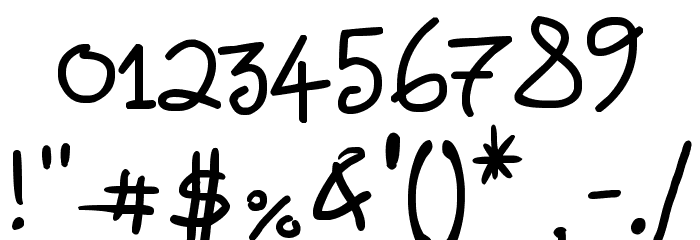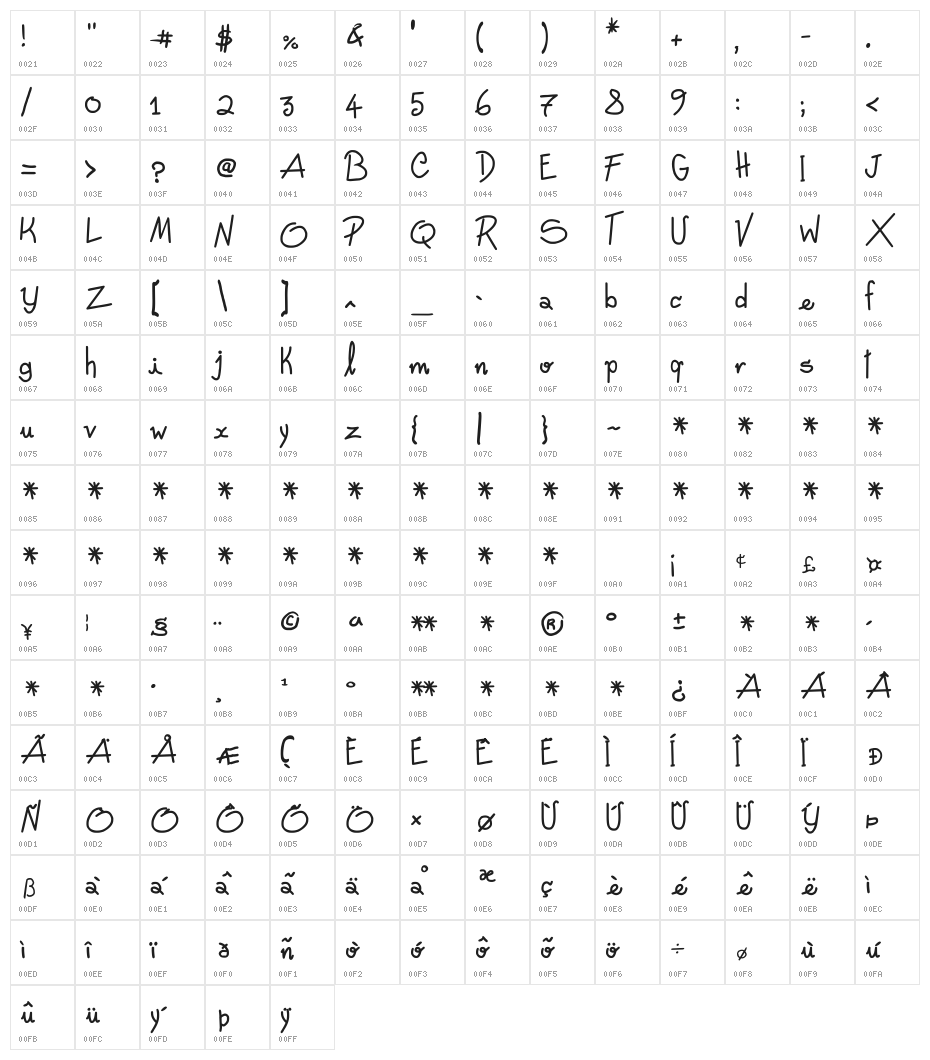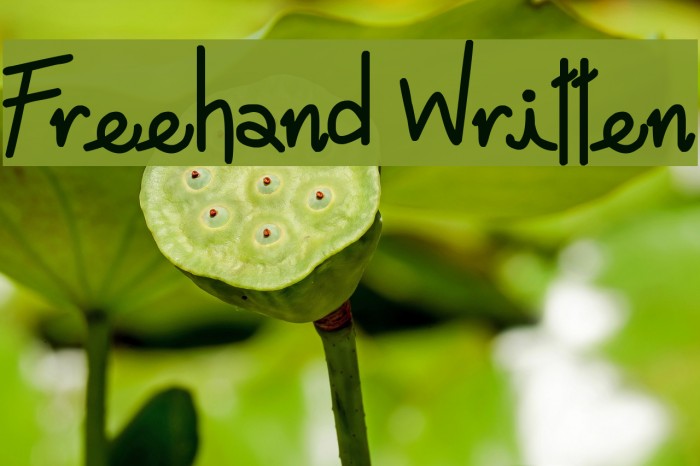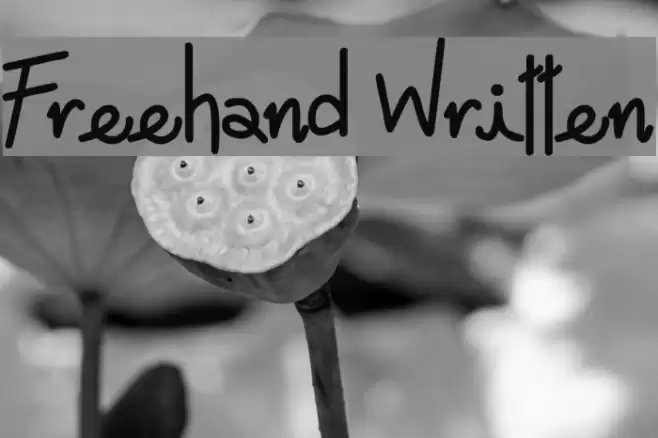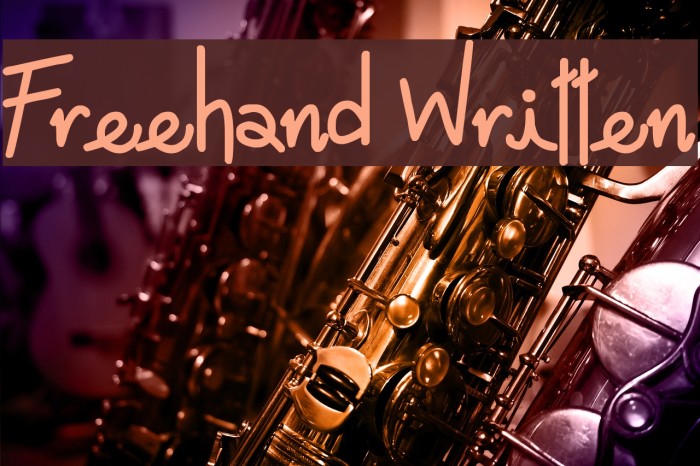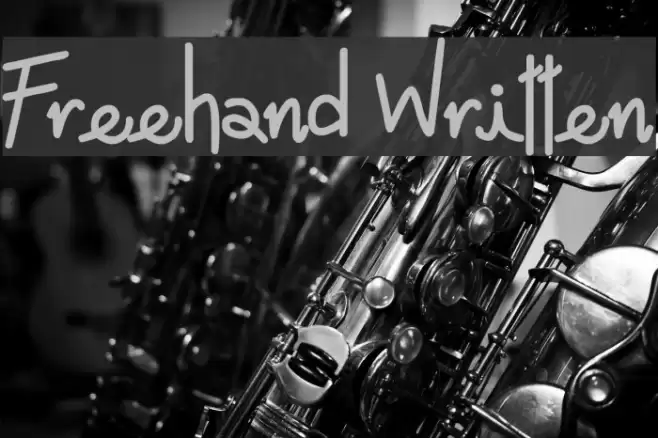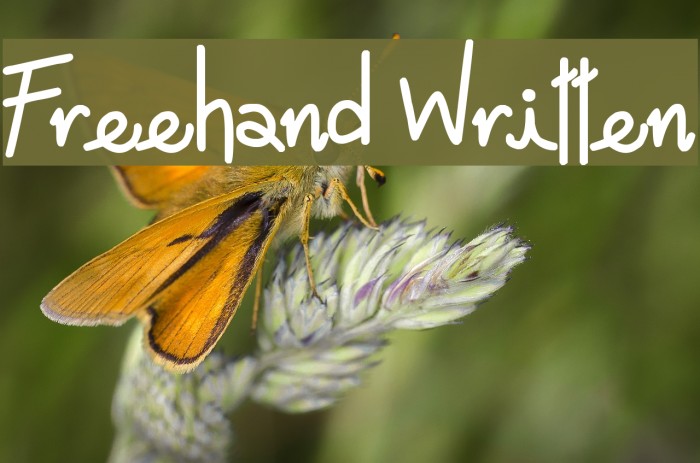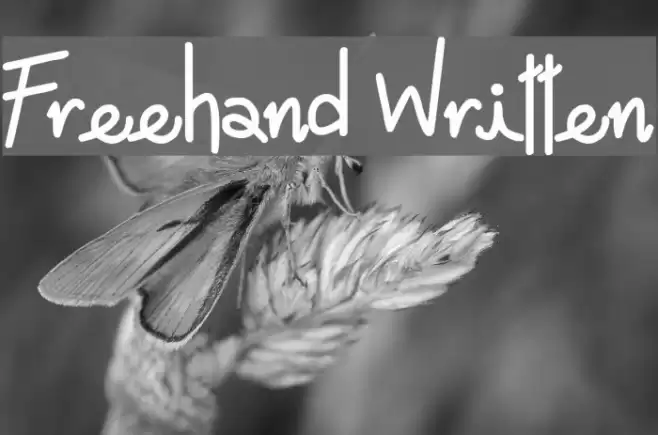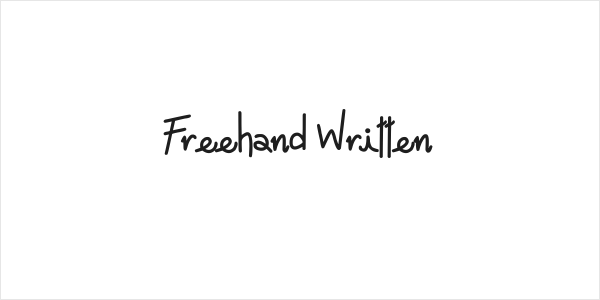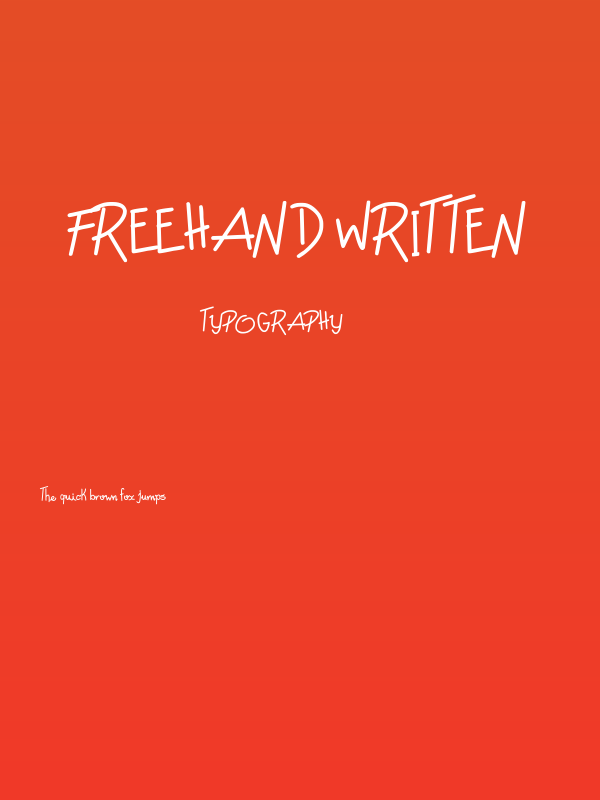
Freehand Written Font
Freehand Written Description
This font features a playful, freehand style that mimics natural handwriting. The characters are slightly irregular, adding a personal and informal touch. The uppercase letters are bold and prominent, while the lowercase letters maintain a consistent flow, enhancing readability. Numbers and special characters follow the same handwritten aesthetic, making them suitable for creative projects. The overall appearance is casual yet legible, perfect for designs that require a human touch.
| Proposed Projects | Ideal for greeting cards, personal branding, informal invitations, and creative projects requiring a human touch. |